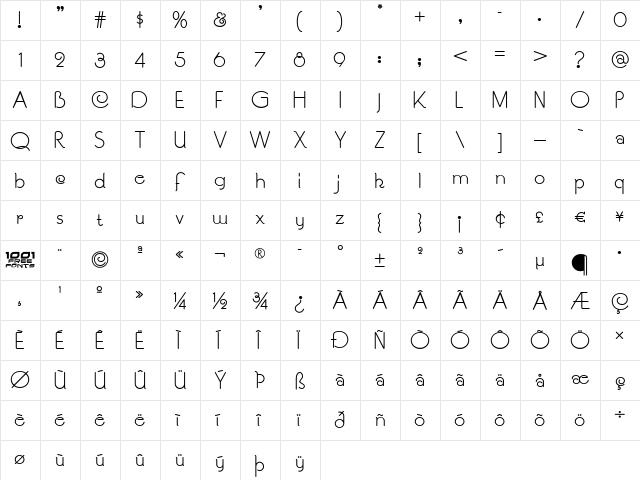
Souci Sans NF Regular
| Foundry | Nick Curtis |
| Designer | Nick Curtis |
Design Context for Souci Sans NF Typeface
Souci Sans NF is a composed and adaptable typeface that performs quietly and consistently across a wide range of design contexts.